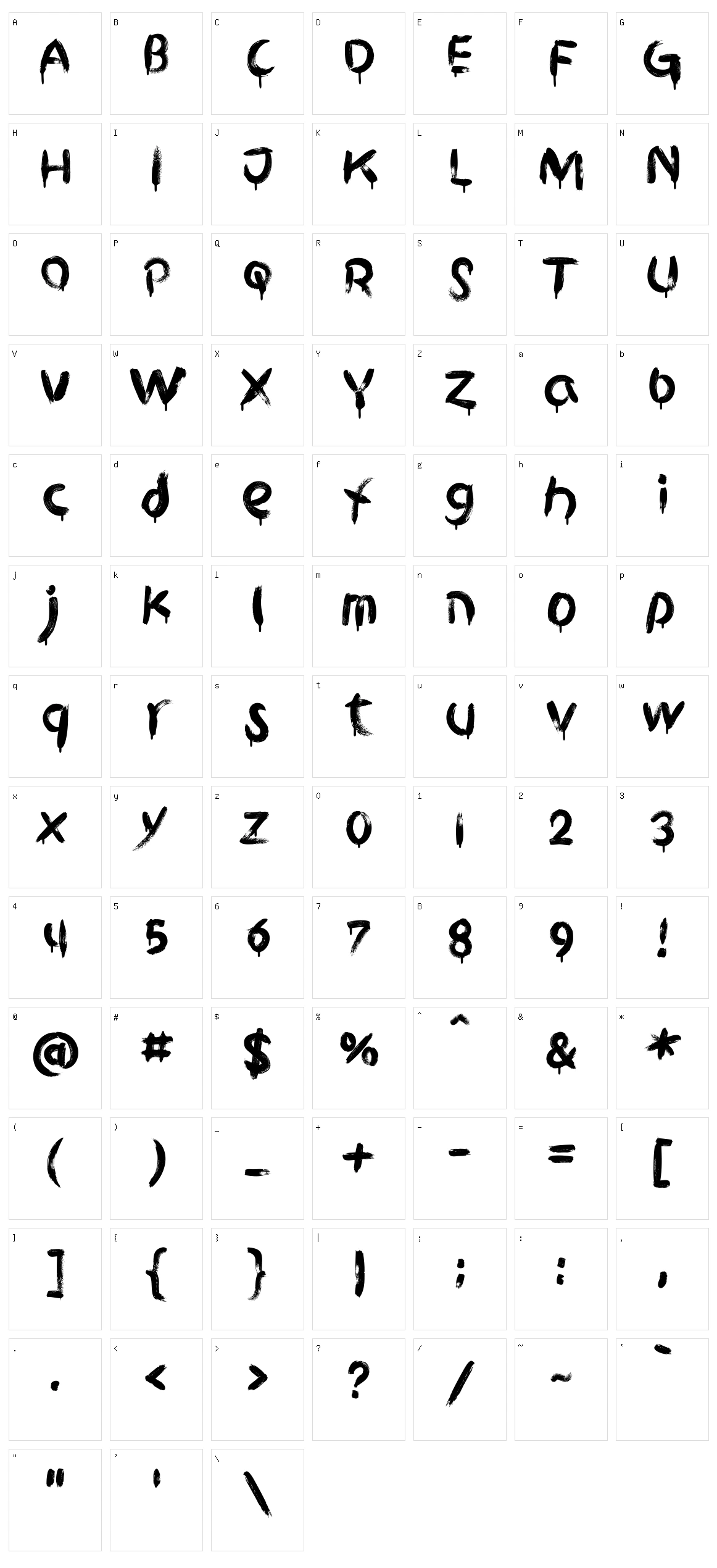
Griphite is a brush typeface family in four styles.
It is hand-drawn by Måns Grebäck with the use of paintbrush strokes.
In its great detail, this typeface does look like true paint.
The font comes in Regular and Bold.
It also includes a Drop typeface; a font with stylistic additions of drips
to be used by itself or in combination with the normal style.
The language support is extensive, and it works in all major European and Latin-based languages.